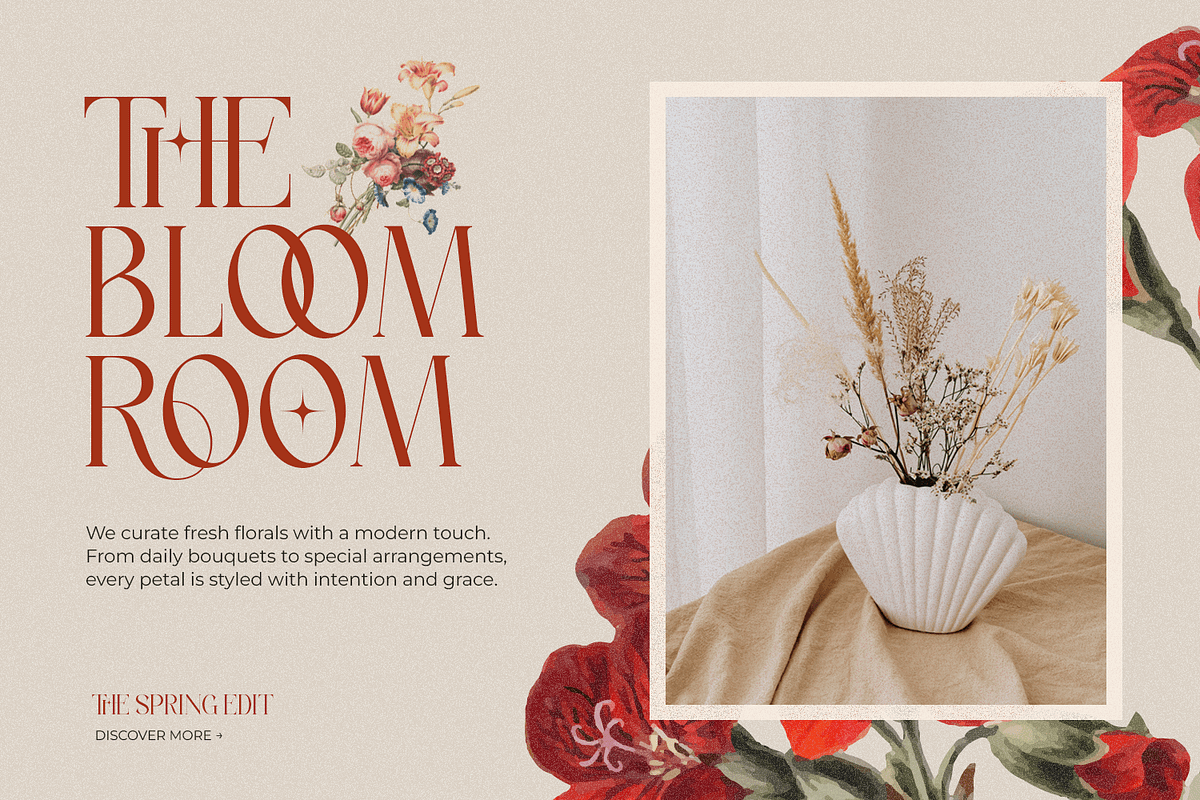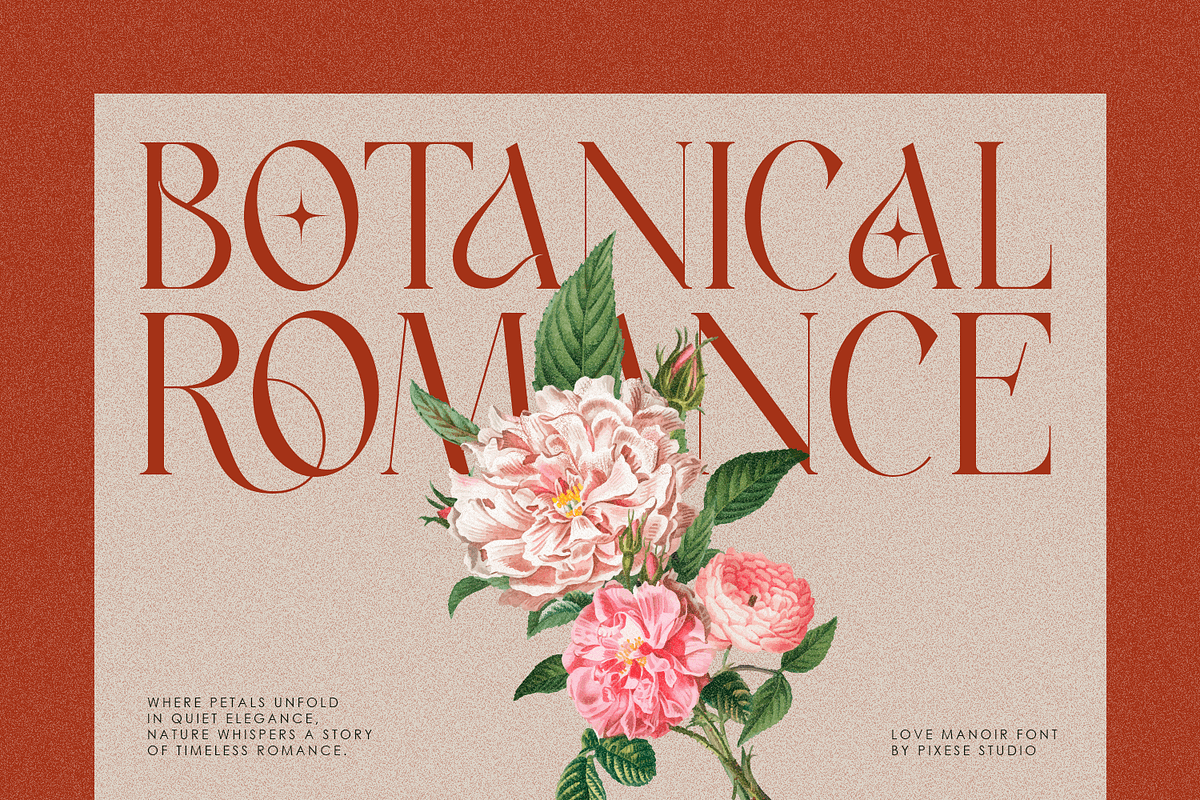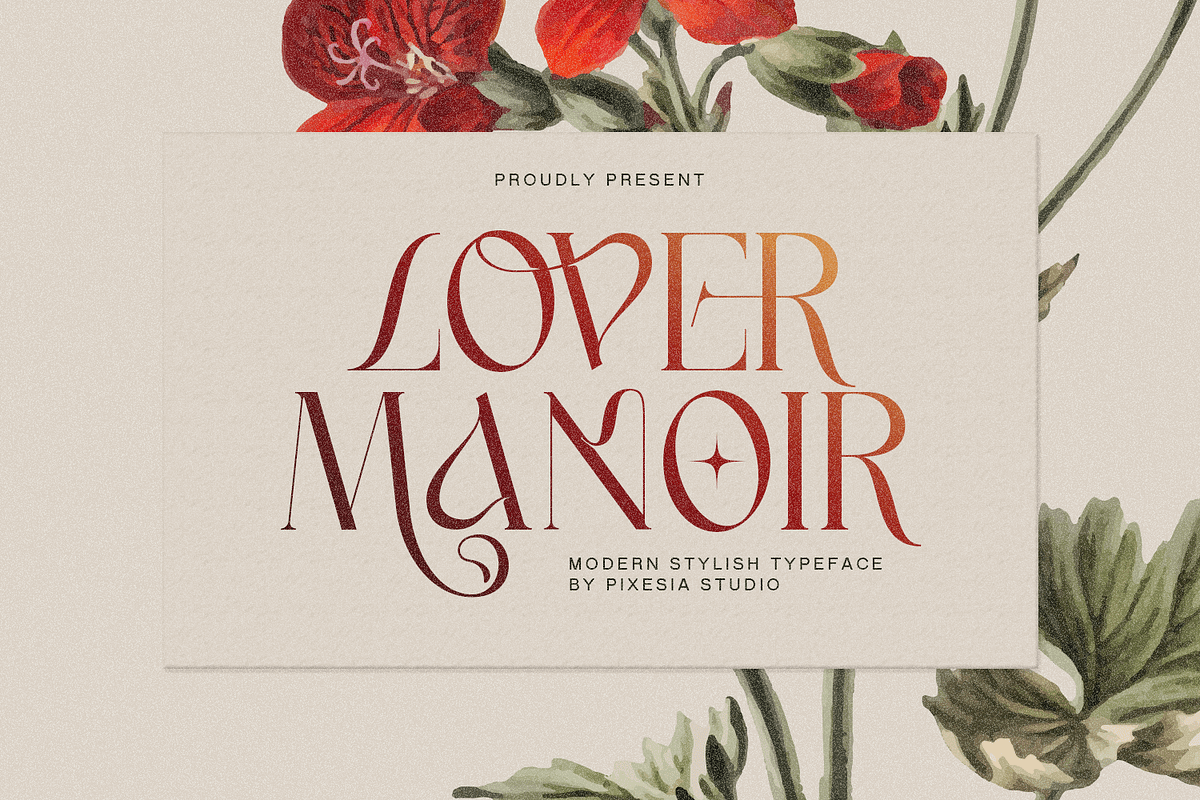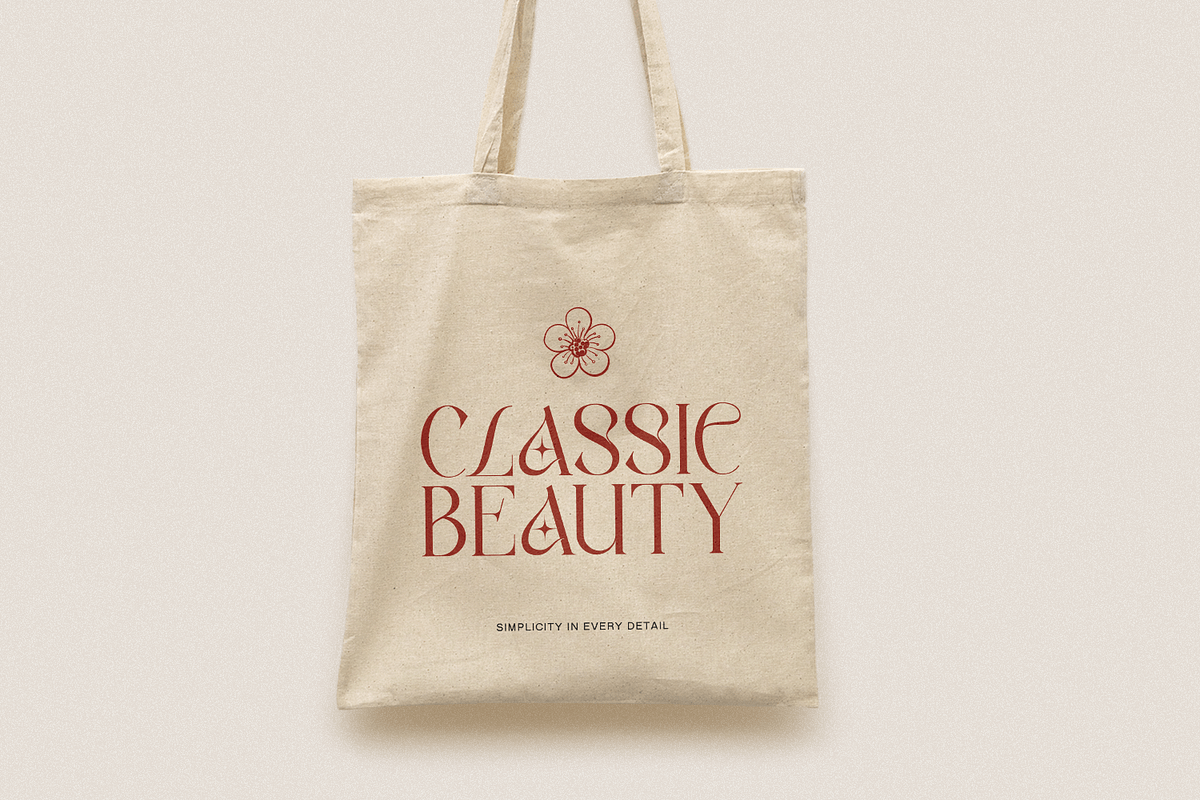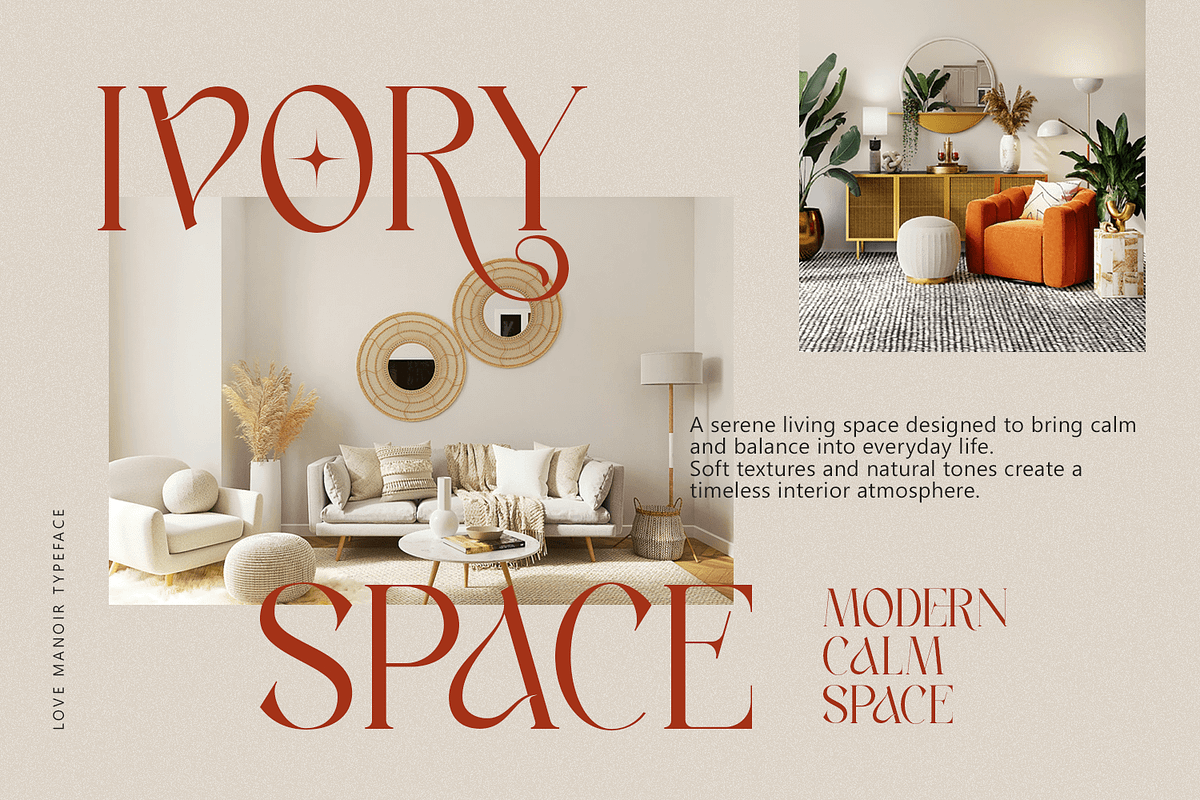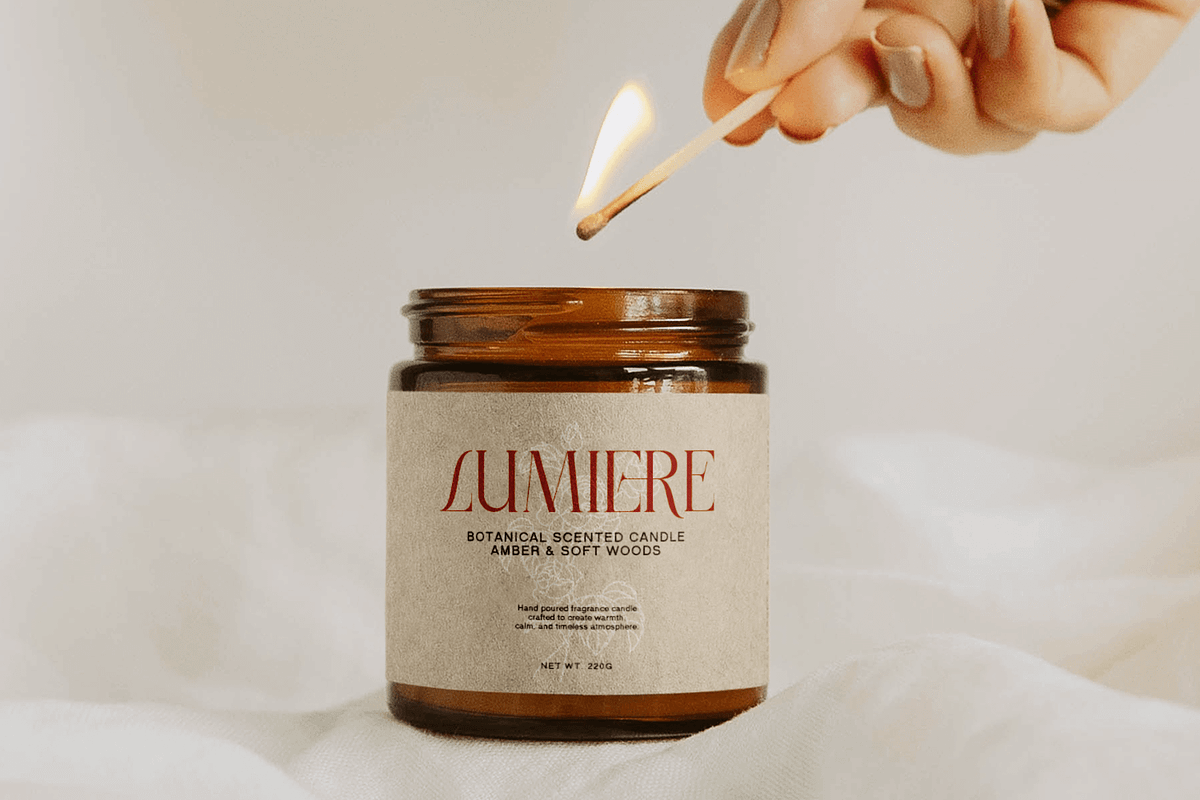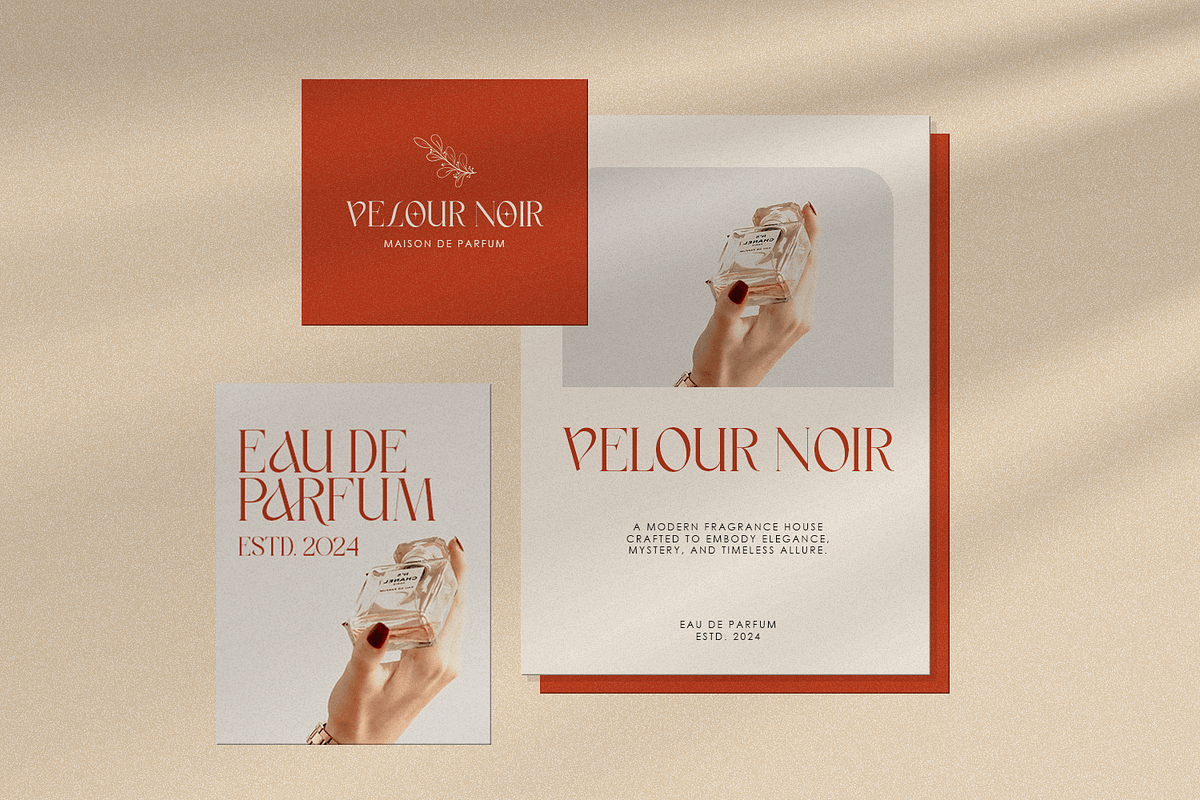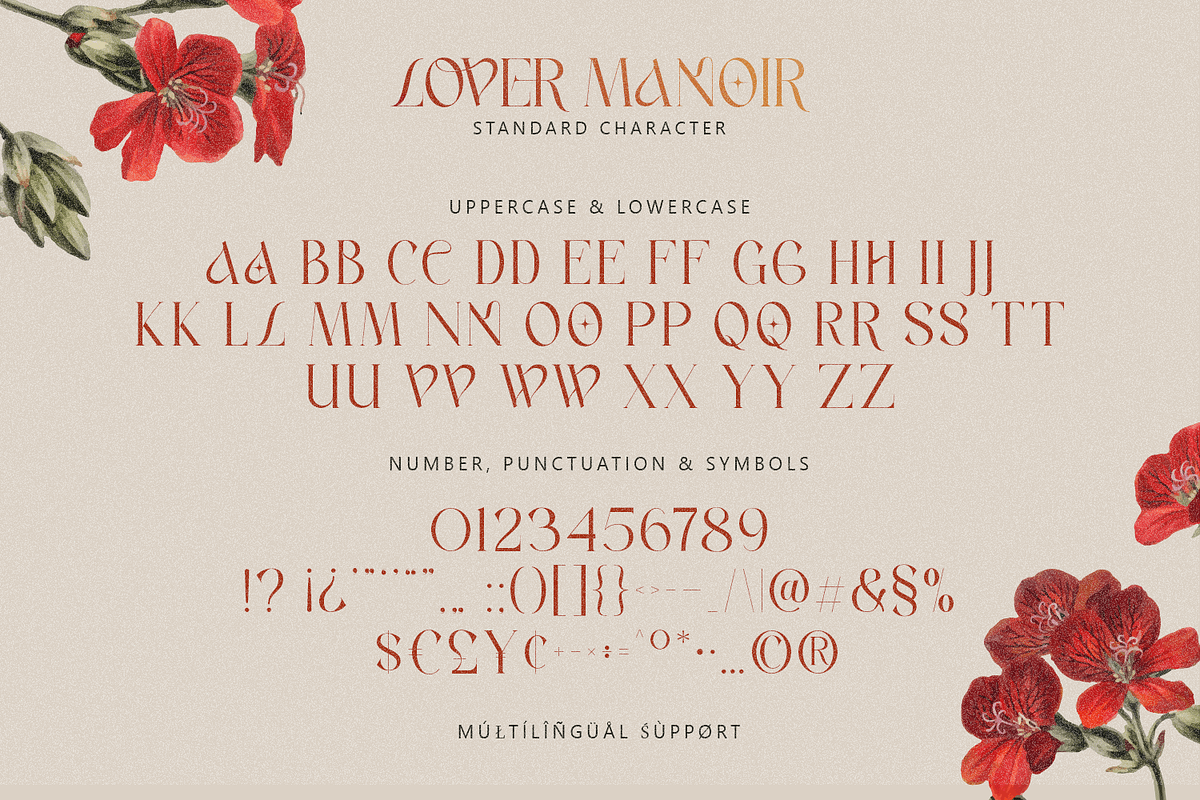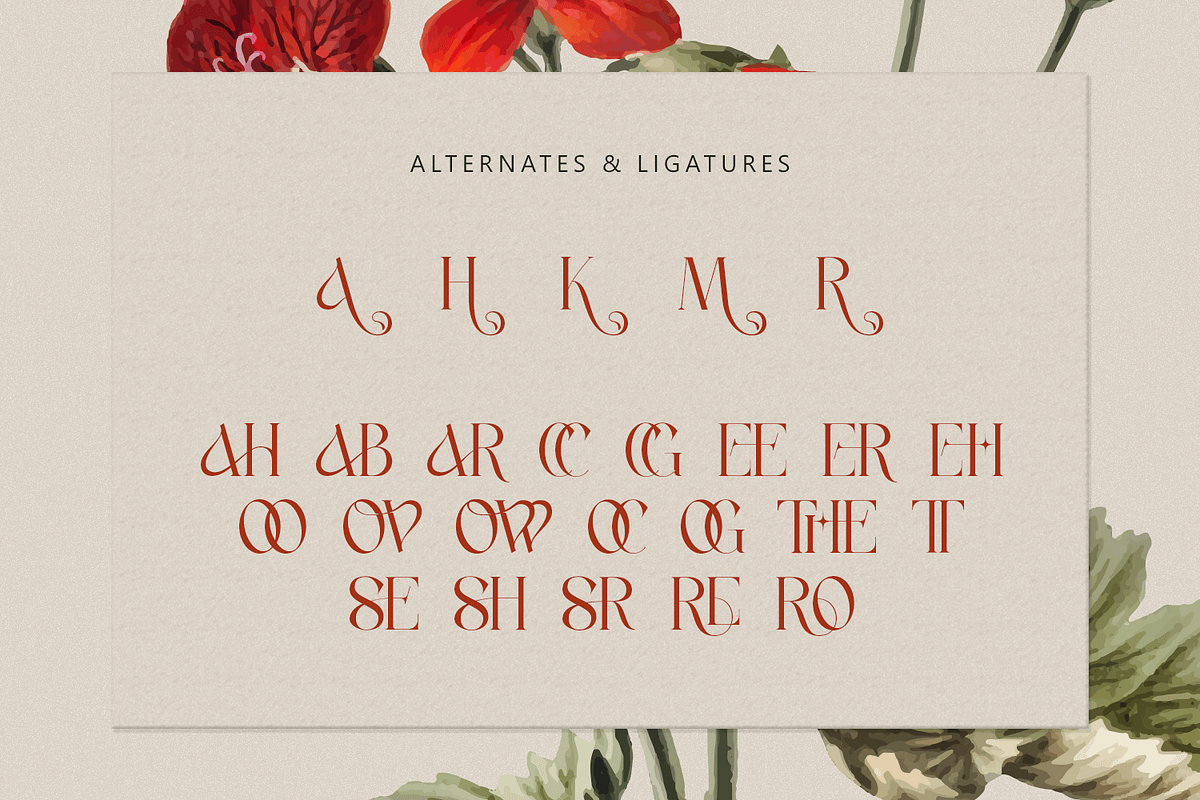
Lover Manoir - Modern Stylish Serif
Introducing Lover Manoir - Modern Stylish Serif Font
Lover Manoir is a modern stylish serif typeface that blends romantic elegance with refined contemporary structure. Featuring graceful curves, delicate high-contrast strokes, and distinctive letterforms, this typeface radiates sophistication and charm. The subtle decorative elements and flowing serif details create a timeless yet fashionable aesthetic that feels both classic and fresh.
Perfect for luxury branding, fashion editorials, wedding invitations, beauty packaging, boutique logos, and high-end marketing materials, Lover Manoir brings elegance and personality to every design. Whether you're crafting a romantic identity or a premium visual concept, this typeface ensures your typography looks polished, expressive, and unforgettable.